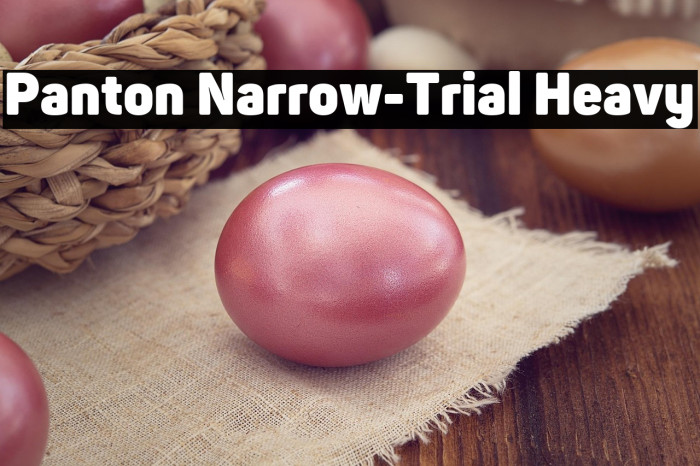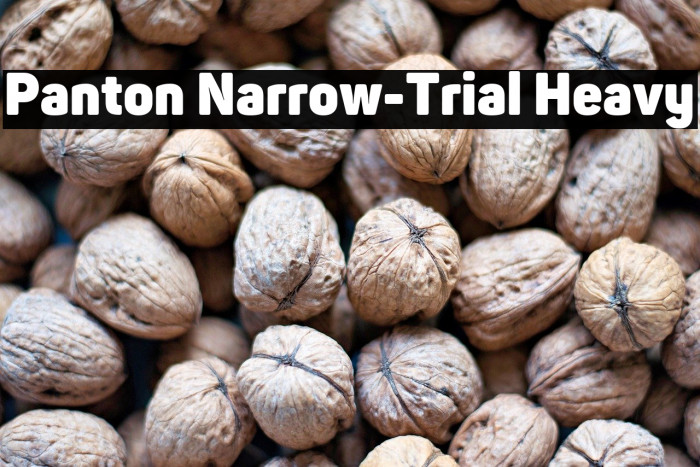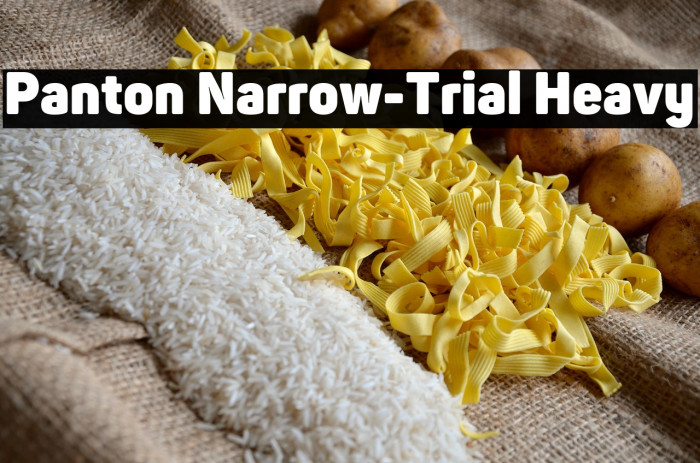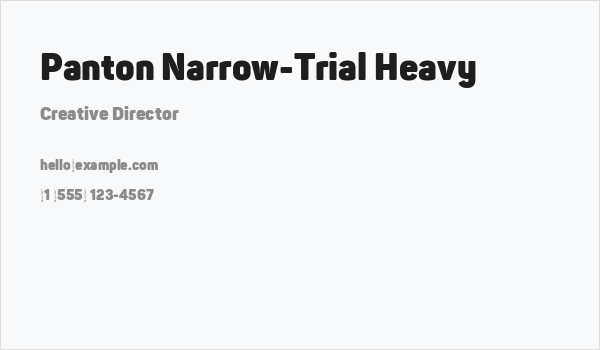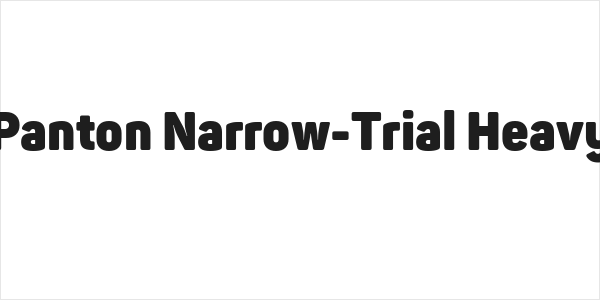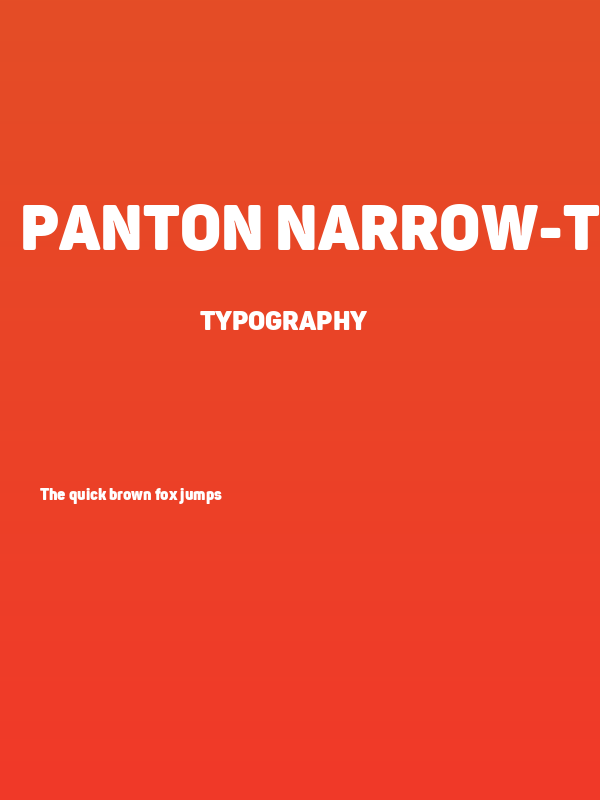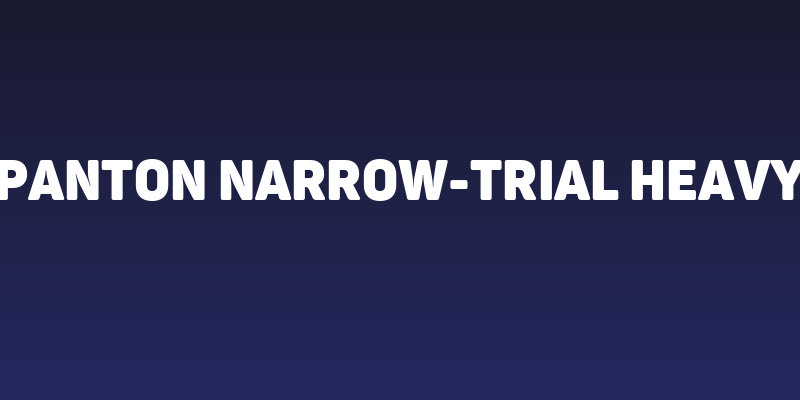
Panton Narrow-Trial Heavy Font
Panton Narrow-Trial Heavy Description
This font presents a bold and modern aesthetic with a narrow design that emphasizes clarity and impact. The characters are uniformly thick, providing a strong presence on any medium. The uppercase and lowercase letters maintain a consistent style, with rounded edges that soften the overall look without compromising on readability. The numerals are equally robust, ensuring they stand out in any context. Special characters are designed to match the boldness of the alphabet, making them suitable for various applications. The font's narrow width allows for efficient use of space, making it ideal for headlines and titles where space is limited.
| Proposed Projects | Ideal for branding, advertising, posters, and any project requiring a strong visual impact. |